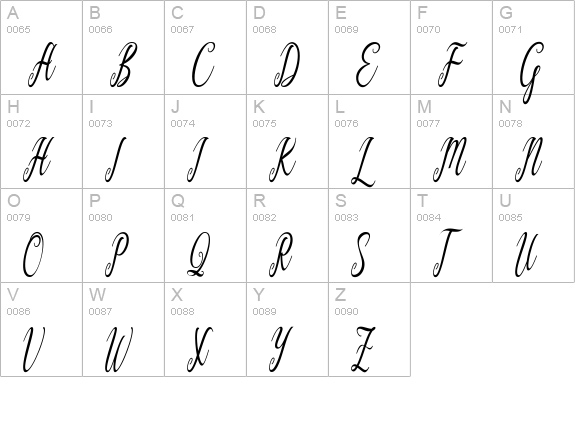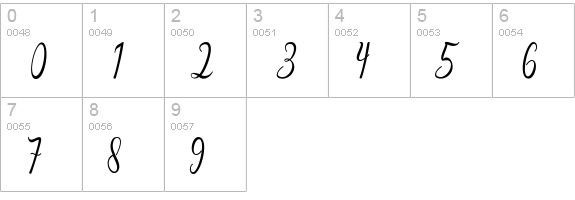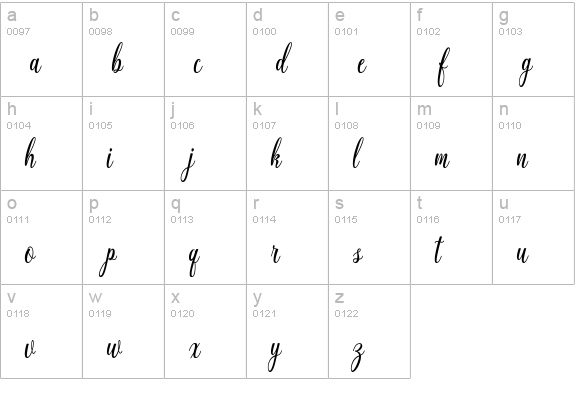
California font is a modern and stylish typeface that exudes a sense of sophistication and elegance. With its sleek lines and distinctive letterforms, this font is perfect for a wide range of design projects, from branding and advertising to invitations and social media graphics.